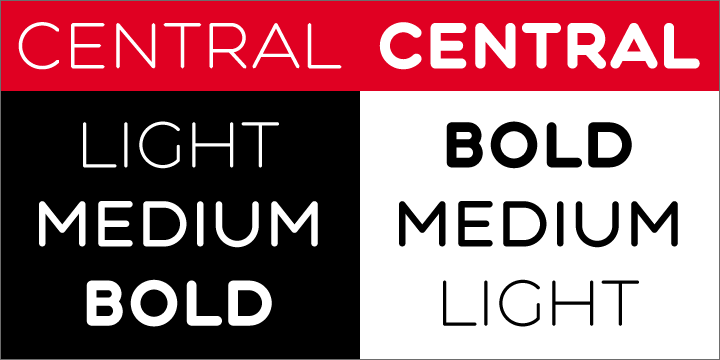
Central Font Free Download is a sleek and versatile sans-serif typeface designed for clarity and impact. Its clean, geometric shapes make it perfect for branding, web design, editorial work, and user interfaces that require a modern and professional look.
Whether you're creating corporate logos, website headers, or print materials, Central Font Free Download offers excellent readability and a polished appearance. Its balanced design adapts well to both large headlines and smaller text.
Elevate your design projects with the crisp, modern style of Central Font Free Download. Try it today and make your typography stand out with simplicity and elegance.